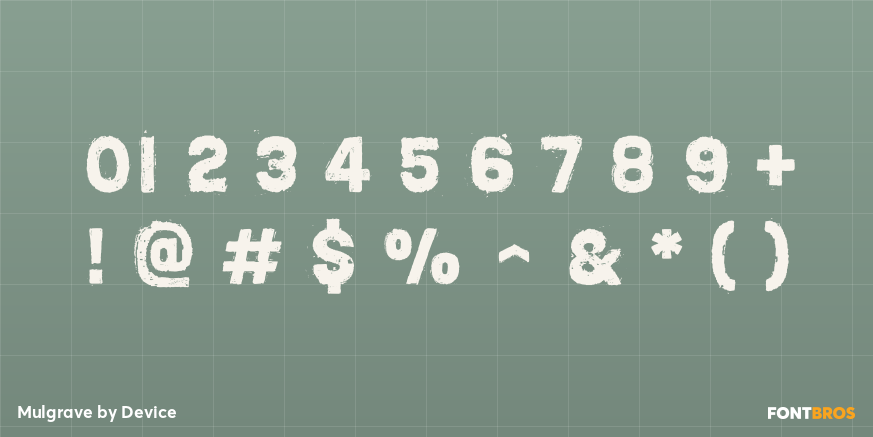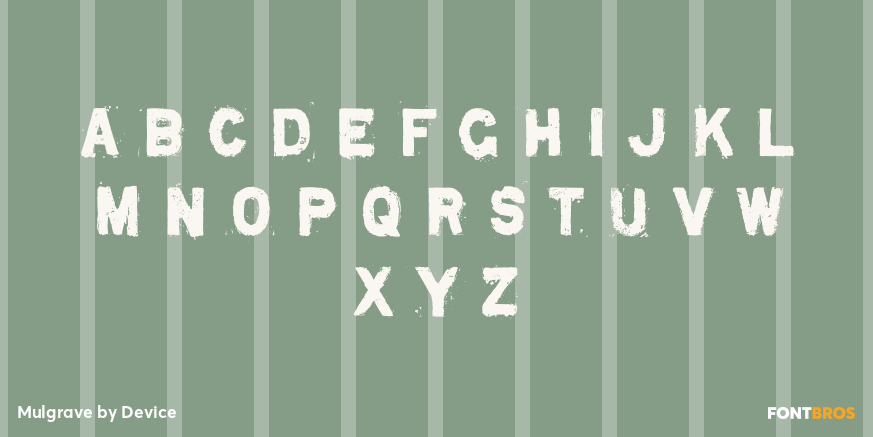
Mulgrave
Font Family by Device
Mulgrave is a single-style display sans with a distressed, graffiti-inspired look that feels raw, urban, and intentionally weathered. Its rough texture gives large type a gritty, hand-worked presence, making it a strong choice when clean edges would feel too polished. Designed by Device, it brings a bold streetwise attitude to short, attention-grabbing text.
Use it where character matters most: posters, album or event graphics, apparel, packaging, signage, and branding that leans edgy or underground. With its special-effect treatment and sans serif structure, Mulgrave works best as a headline font for designs that want texture, energy, and a distinctly worn-in visual voice.